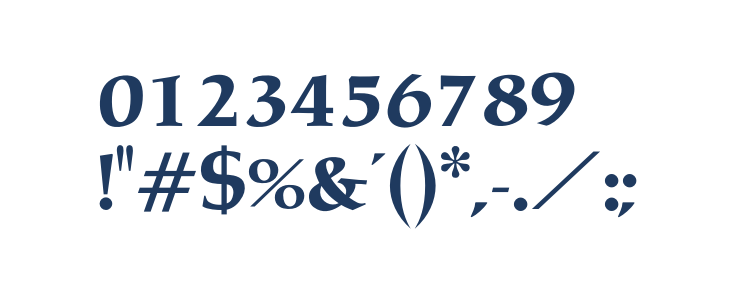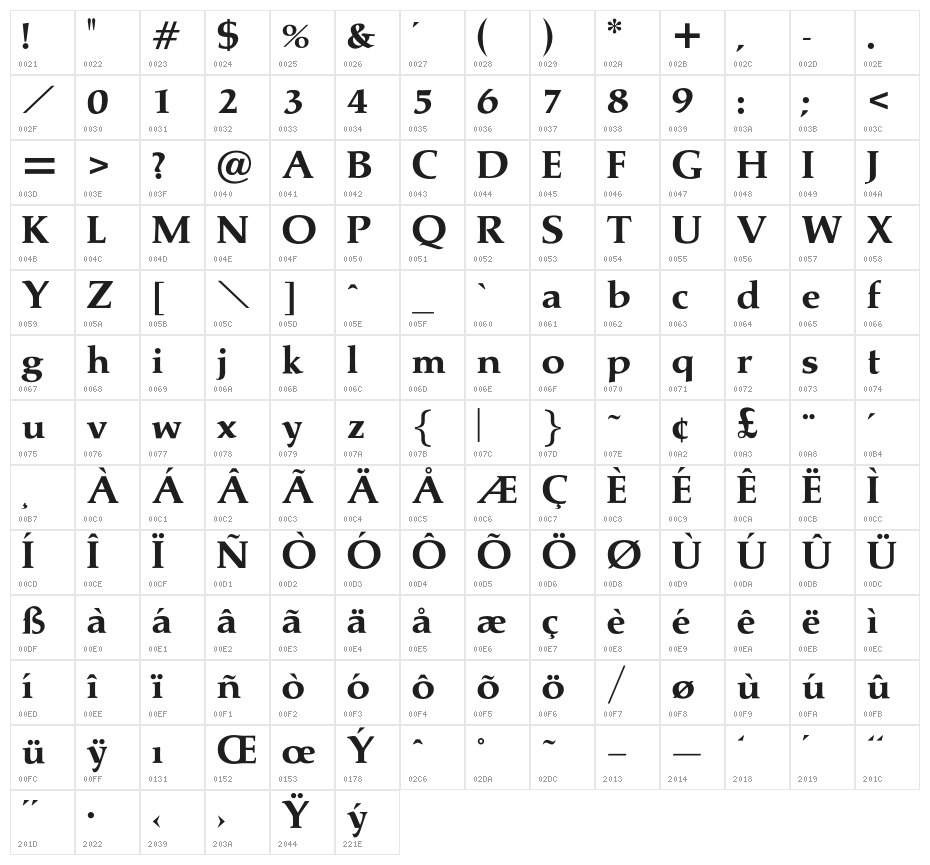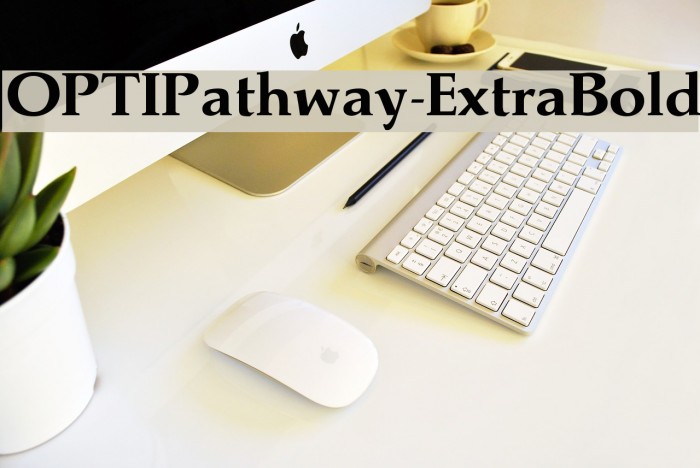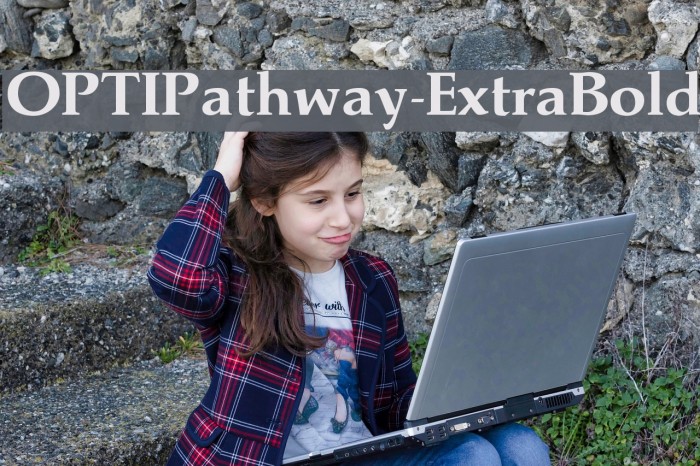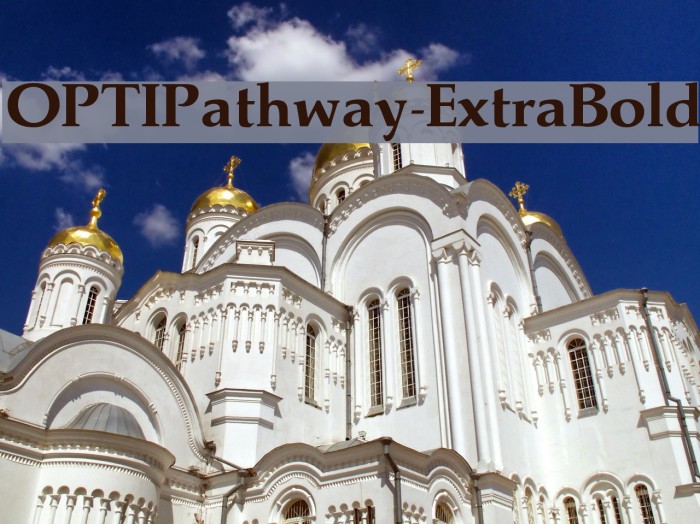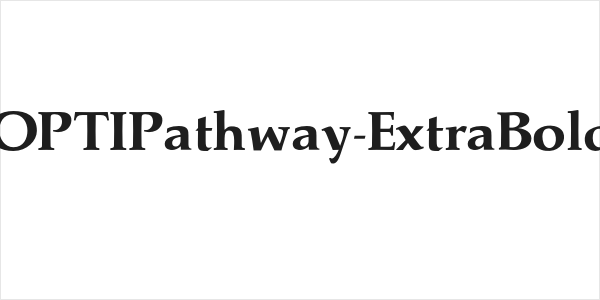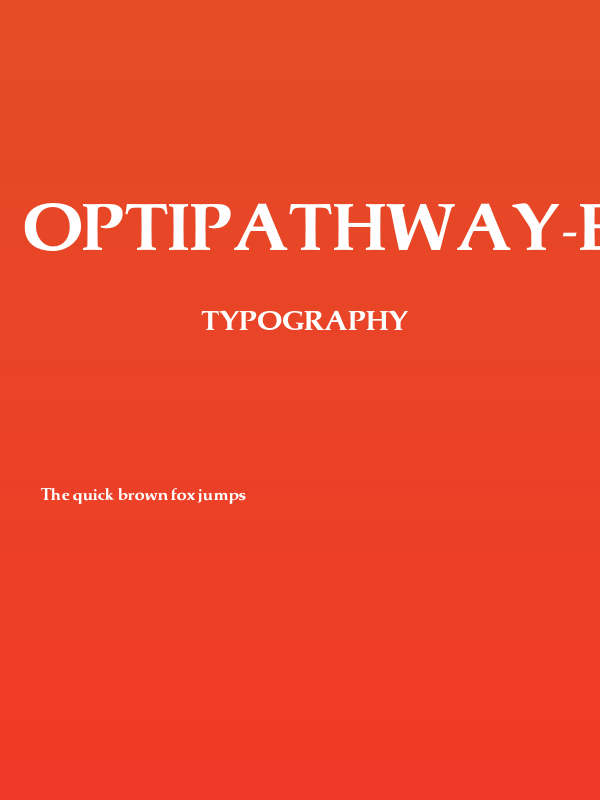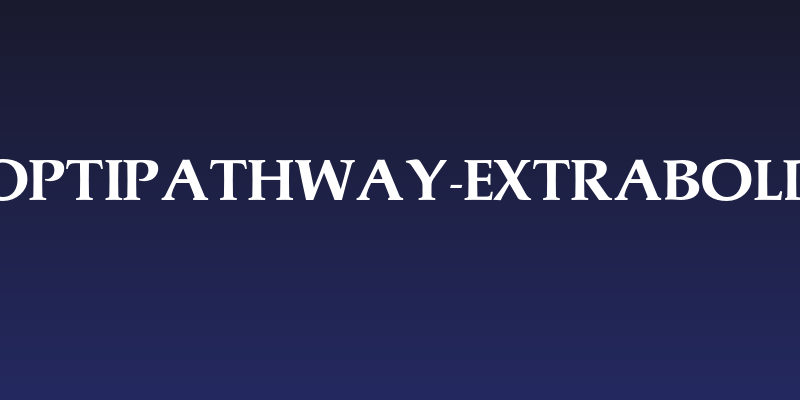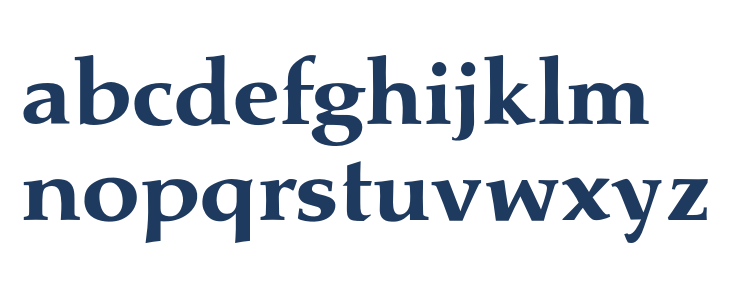
OPTIPathway-ExtraBold Font
OPTIPathway-ExtraBold Description
This typeface exudes a strong and commanding presence with its bold and robust letterforms. The characters are well-defined and exhibit a classic serif style, featuring sharp edges and pronounced serifs that enhance readability. The uppercase letters are particularly striking, with a sense of authority and elegance, while the lowercase letters maintain a consistent weight and balance. The numerals are clear and easily distinguishable, making them suitable for various applications. Special characters are thoughtfully designed, ensuring they complement the overall aesthetic. The font's high contrast between thick and thin strokes adds to its visual impact, making it ideal for attention-grabbing headlines and titles.
| Proposed Projects | Ideal for editorial design, book covers, branding, and advertising where a bold and classic serif is needed. |